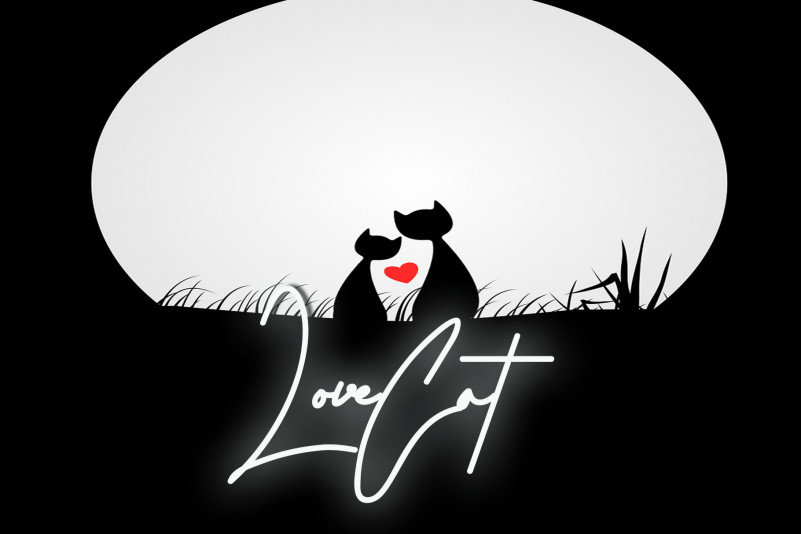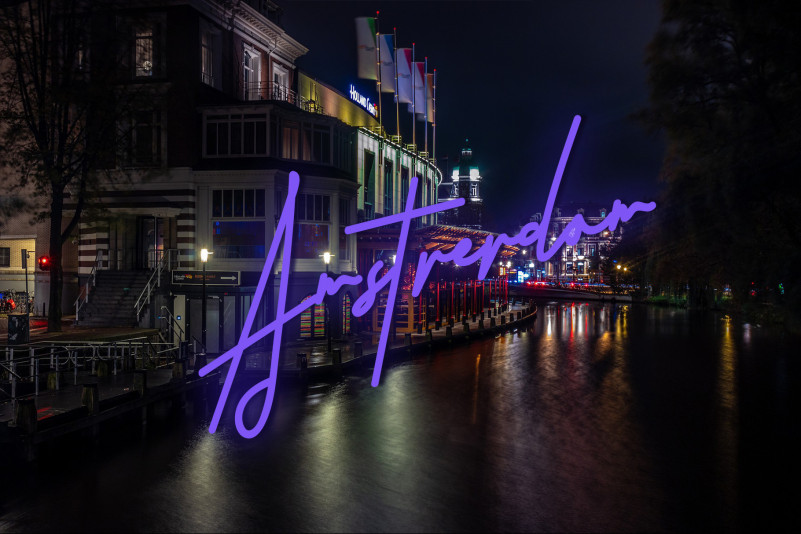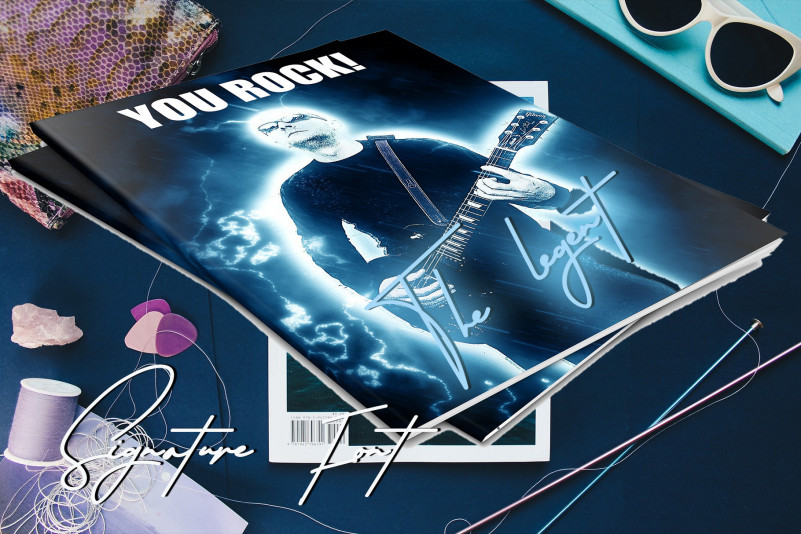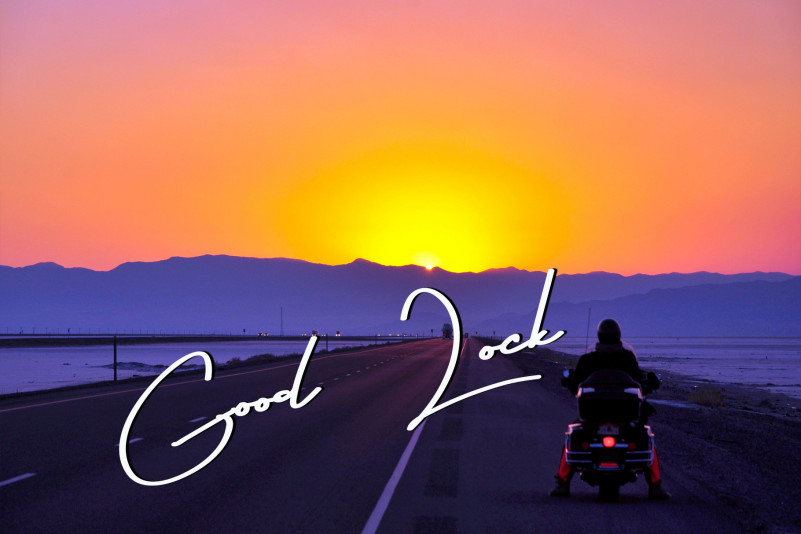
Martyna Signature Font
Martyna Signature Script Font
This is a sweet, all round and flexible handwritten font. Warm, quirky and jolly, this font will turn each of your project ideas into real works of art. Have fun with this beautiful font and explore its endless variations.